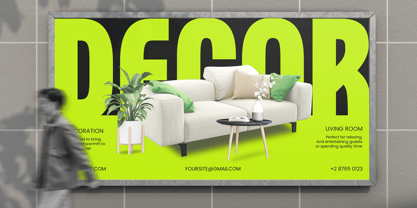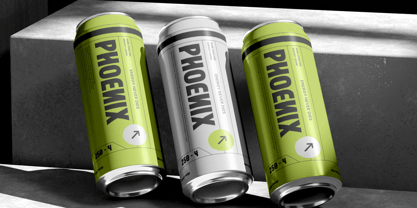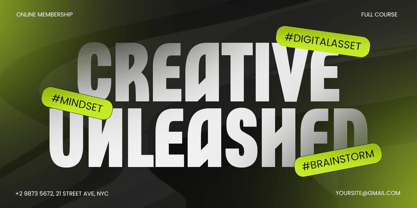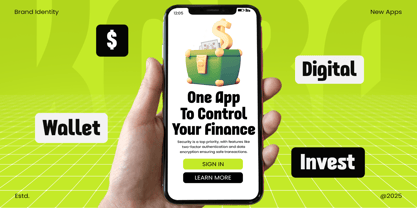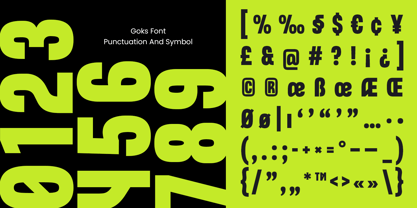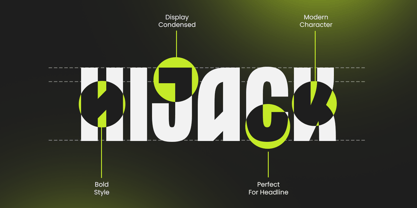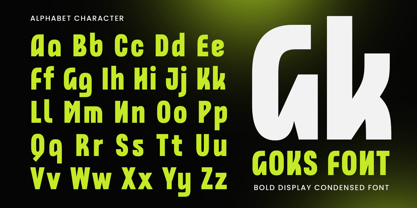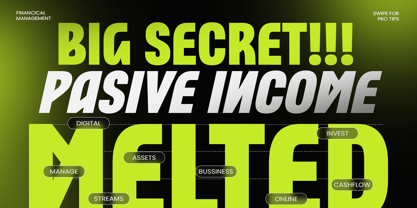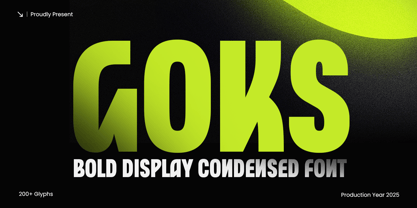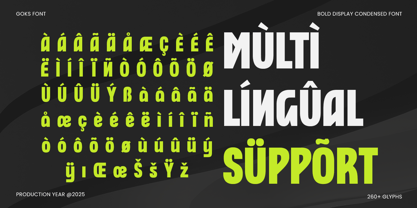
GOKS is a bold display condensed font crafted to make your branding and headlines stand out. Its strong, compact letterforms deliver maximum impact while maintaining readability, perfect for posters, logos, packaging, and digital projects.
With clean lines and a modern condensed style, GOKS adds a powerful and professional touch to any visual identity, ideal for brands and creatives seeking bold, eye-catching typography.
GOKS – Bold Display Condensed Font Features
Bold and impactful condensed character set
Available with Regular and Italic Version
Perfect for branding, headlines, and display use
Uppercase, lowercase, numerals, and punctuation included
OpenType features for extra versatility
Multilingual support for Afrikaans, Albanian, Asu, Basque, Bemba, Bena, Breton, Chiga, Cornish, Dutch, English, Estonian, Filipino, Finnish, Friulian, Galician, German, Gusii, Indonesian, Irish, Italian, Kabuverdianu, Kalenjin, Kinyarwanda, Luo, Luxembourgish, Luyia, Machame, Makhuwa-Meetto, Makonde, Malagasy, Manx, Morisyen, North Ndebele, Nyankole, Oromo, Portuguese, Quechua, Romansh, Rombo, Rundi, Rwa, Samburu, Sango, Sangu, Scottish Gaelic, Sena, Shambala, Shona, Soga, Somali, Spanish, Swahili, Swedish, Swiss, and more.
Make a bold impression with GOKS – the ultimate condensed display font! 💥